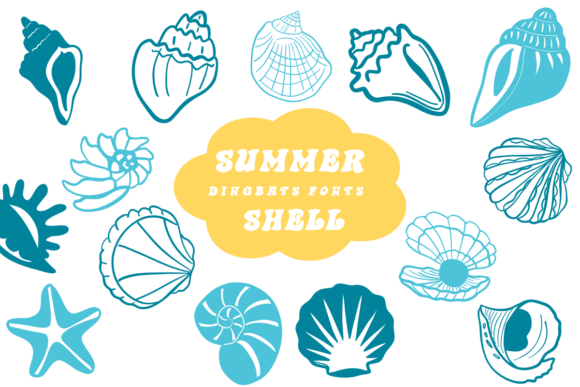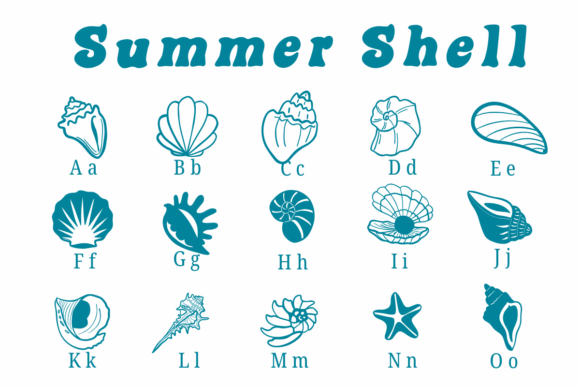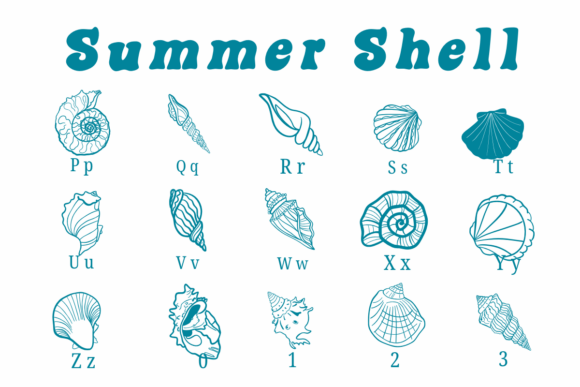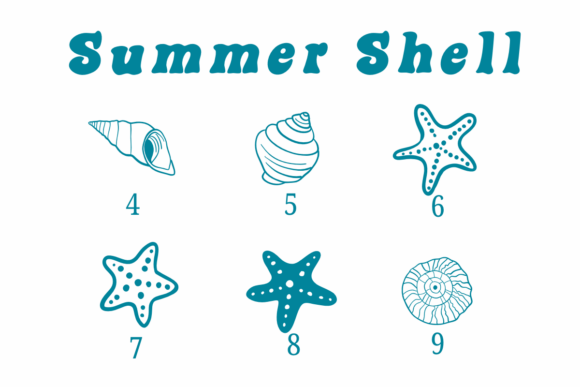
Summer Shell Font
Summer Shell is a dingbats font with an aquatic theme. This font can enhance your creative projects such as wedding invitations, DIY, crafts, decorations, logos, and many other creative ideas.